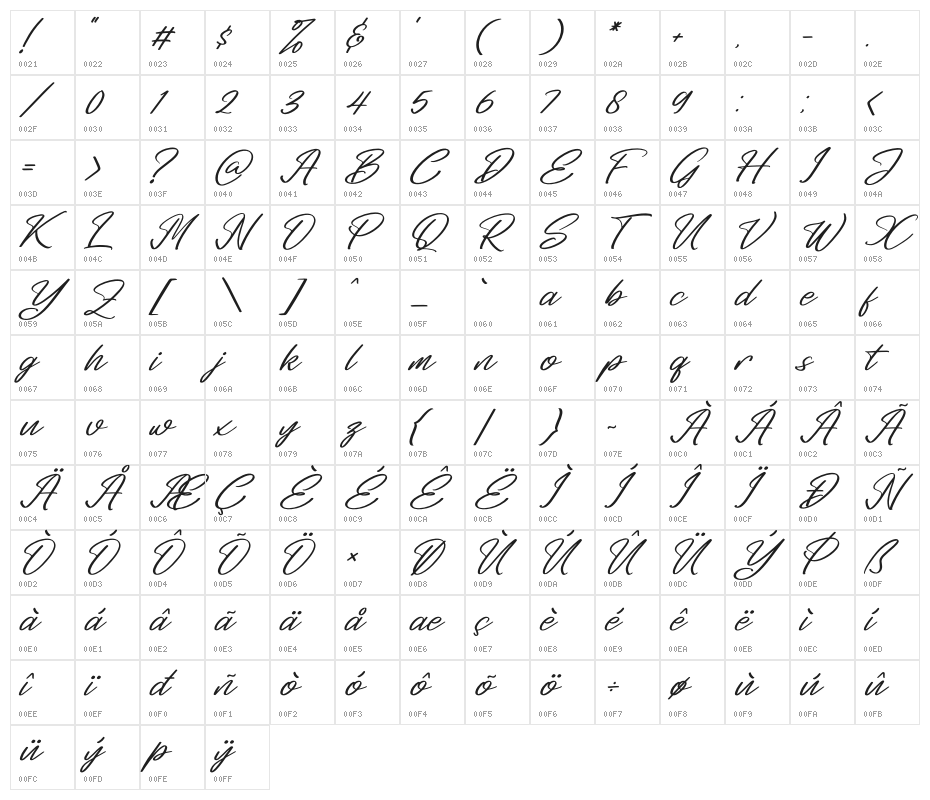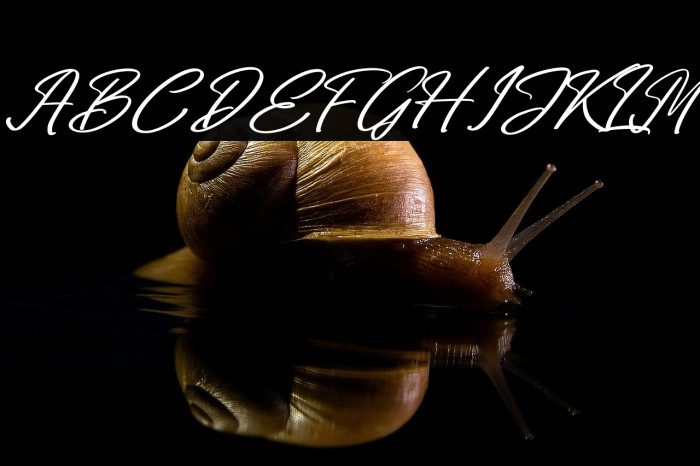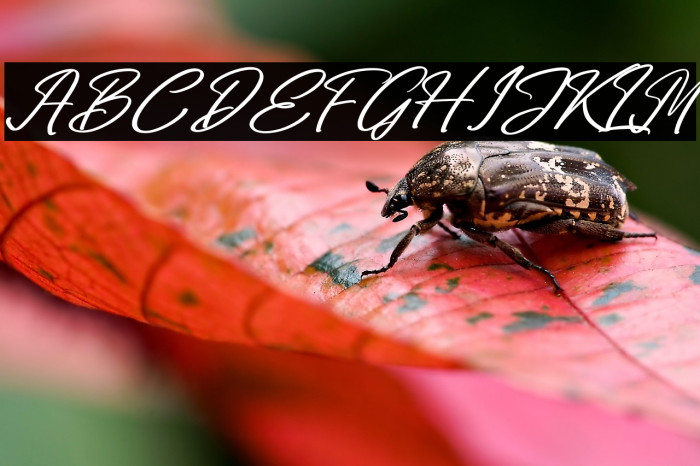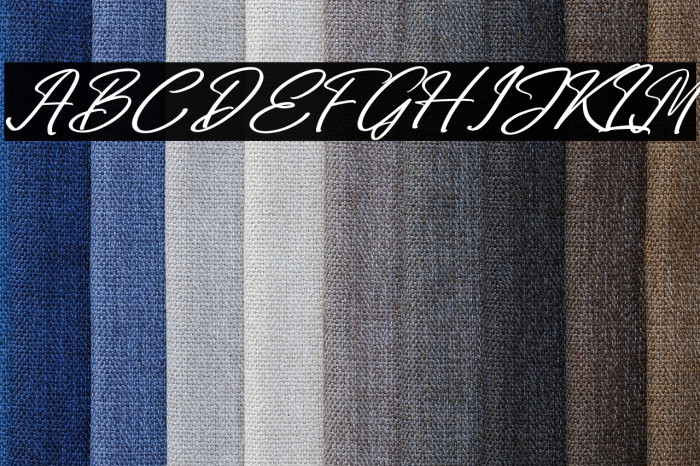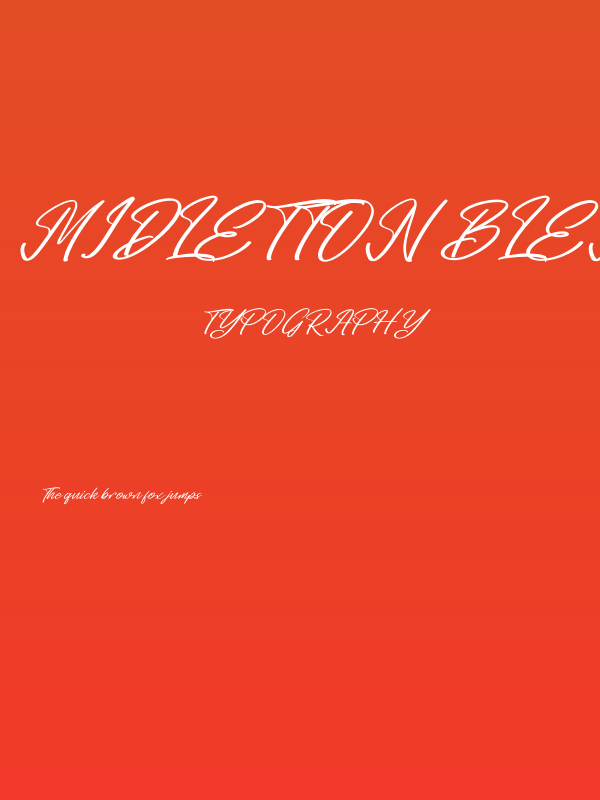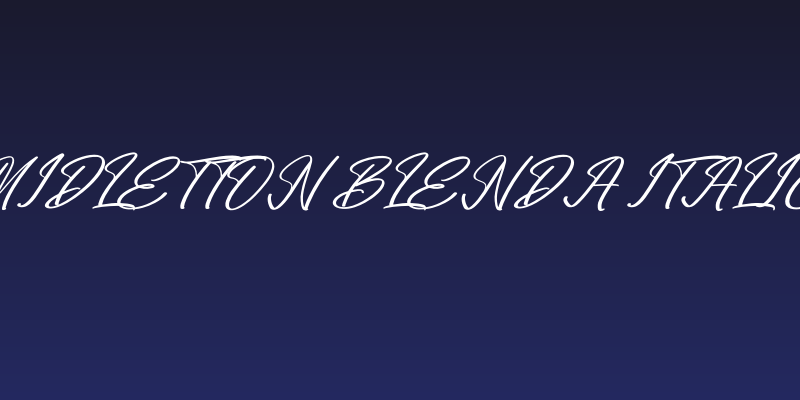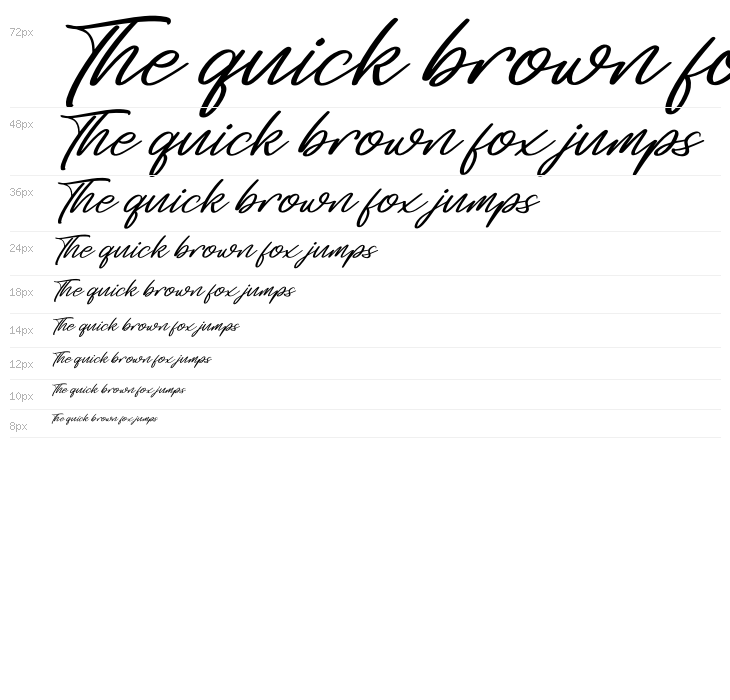
Midletton Blenda Italic Font
Midletton Blenda Italic Description
This elegant script font features a flowing, cursive style with a sense of fluidity and grace. The uppercase letters are slightly larger and more ornate, while the lowercase letters maintain a consistent, smooth flow. The numerals are distinct and maintain the script style, adding a touch of sophistication. Special characters are seamlessly integrated, enhancing the font's versatility. The overall design is cohesive, with each character connecting naturally to the next, making it ideal for creating a handwritten effect.
| Overall Style | Elegant, Decorative |
| Proposed Projects | Ideal for wedding invitations, elegant branding, personal signatures, and artistic projects requiring a touch of sophistication. |